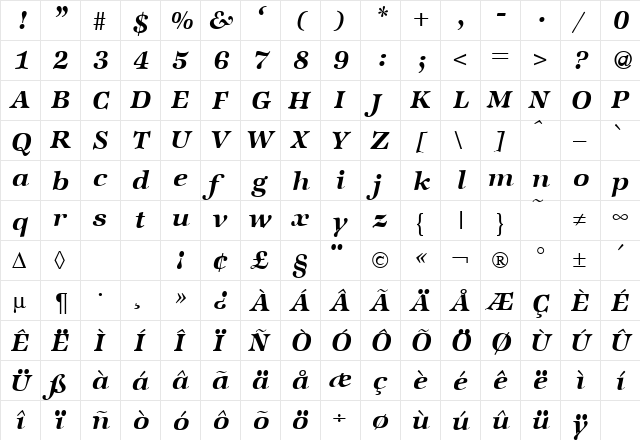
Design Context for ZabriskieInternational Typeface
ZabriskieInternational takes a measured approach to typography — its balanced proportions and neutral character make it a reliable workhorse for both digital and print work. The dynamic lean of this cut emphasises speed and emphasis in any layout. The heavy weight commands attention and anchors typographic hierarchies.
Pro Tip: Use ZabriskieInternational for emphasis, pull quotes, and subheadings where its slanted energy can add rhythm to the layout.